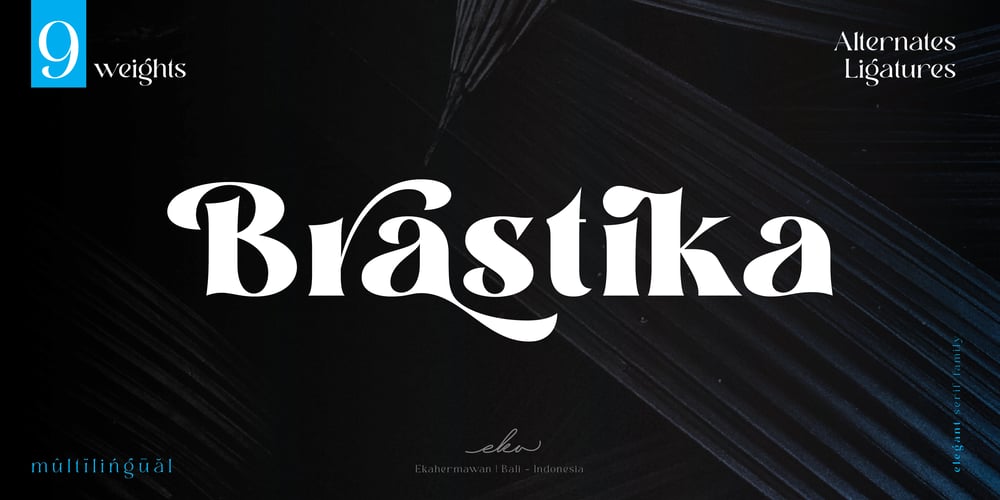
Brastika
Brastika font
Brastika Font Family was designed by Putu Eka Hermawan and published by Ekahermawan. Brastika contains 9 styles and family package options. Brastika is an elegant serif family with 9 weights from Thin to Black.Brastika also includes a bunch of alternate characters (PUA Encoded) and ligatures to give you a wide range for create an unique typographic design results.Brastika is suitable font for many different projects such as logo, branding, poster, magazines, labels, merchandise, invitation, presentation, advertising, quotes and so much more!FEATURES: OpenType support Playfull to use (with ligatures and alternates options) Multilingual support PUA Encoded If you need support or more information about this itemplease kindly contact me :ekahermawanputu@gmail.comThank you so muchI really hope you enjoy when using it!